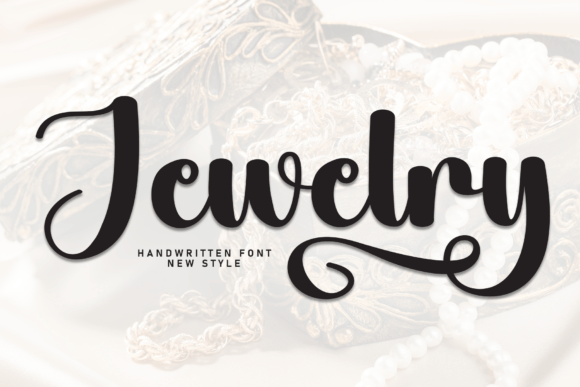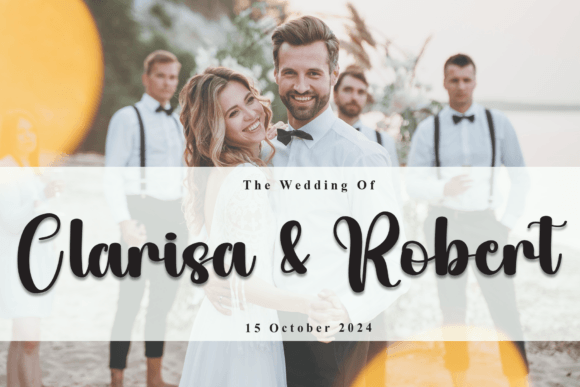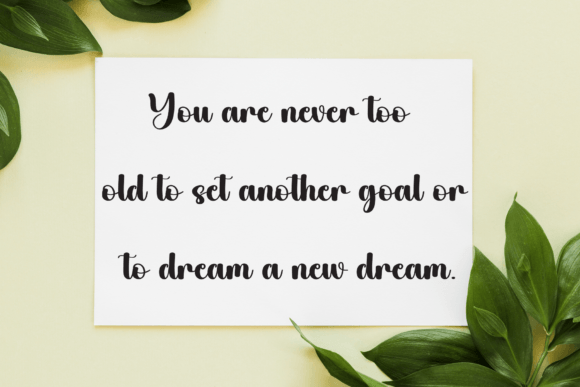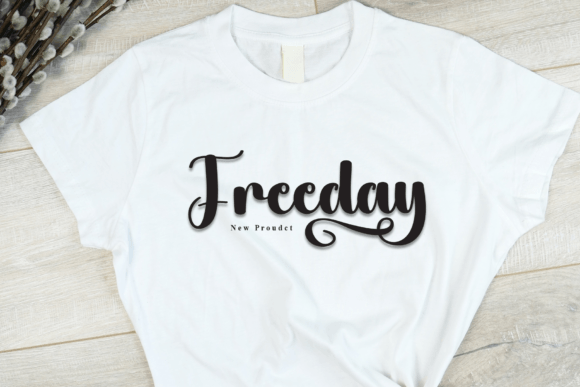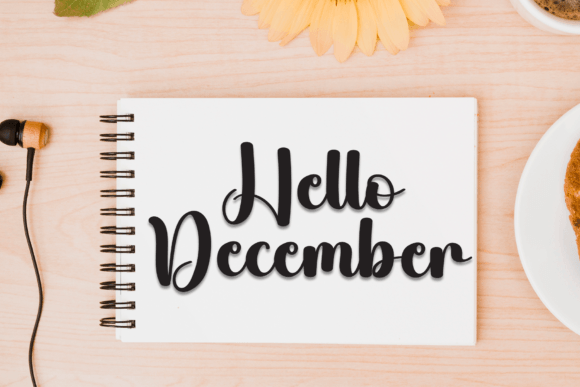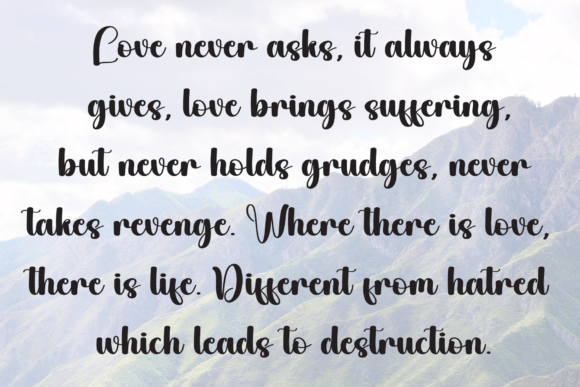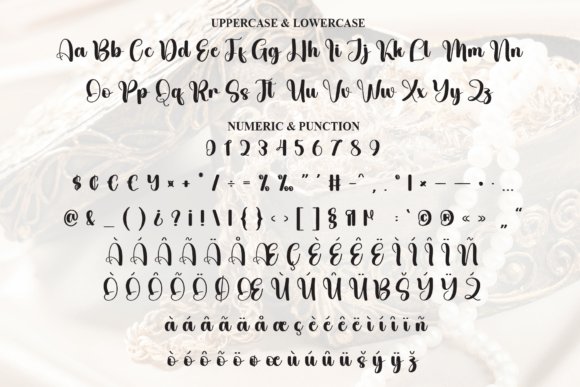
Adding a Touch of Elegance to Your Designs
Have you ever been browsing through a design inspiration blog, scrolling through Pinterest boards, or flipping through a fashion magazine and seen a stunning piece of typography that immediately caught your eye? For many designers, that’s exactly how the creative process begins – with a spark of inspiration that sets off a chain of ideas and possibilities.
One of the fonts that often leaves a lasting impression is Jewelry Font, a stylish script font with smooth, flowing letters that exudes modern elegance. Whether you’re working on a winter-themed project or need a sleek, digital vibe, Jewelry Font is the perfect addition to elevate your designs. Its versatility and sophistication make it a valuable asset for designers looking to add a touch of creativity to their work.
Jewelry Font Key Features
- Unique Ornate Design: Jewelry Font features an elegant, ornate design inspired by traditional jewelry and decorative elements, making it perfect for adding a touch of luxury to your designs.
Jewelry Font Review
Overall, I’m impressed with Jewelry Font’s unique design. ✨ Its intricate details and elegant curves make it perfect for jewelry and fashion-related projects. The font is highly versatile, and I can see it working well in a variety of contexts, from logo design to advertising.
The font’s many features include:
- A wide range of ligatures and swashes, which add a touch of elegance and sophistication
- A high level of customization, allowing designers to tailor the font to their specific needs
- Support for a variety of languages, making it a great choice for global branding
However, I do have some concerns:
- ⚠️ The font can be quite dense, which may make it difficult to read in certain contexts
- ⚠️ Some characters may be more prone to error than others, which can be frustrating for designers
Overall, I would recommend Jewelry Font to designers who are looking for a unique and elegant font for their jewelry or fashion-related projects. With a little bit of tweaking and testing, I’m confident that it will be a valuable addition to any designer’s toolkit.
Jewelry Font is commonly used in:
1. Jewelry and fashion design
2. Luxury branding and marketing
3. High-end packaging and labels